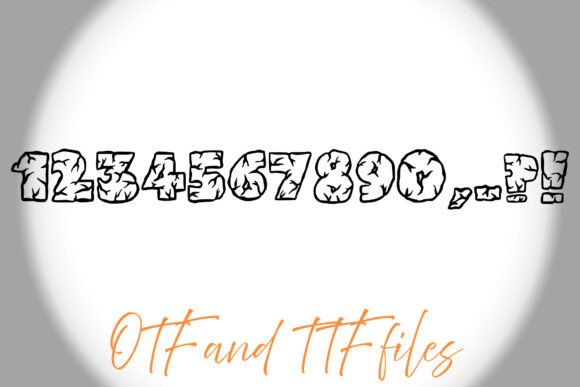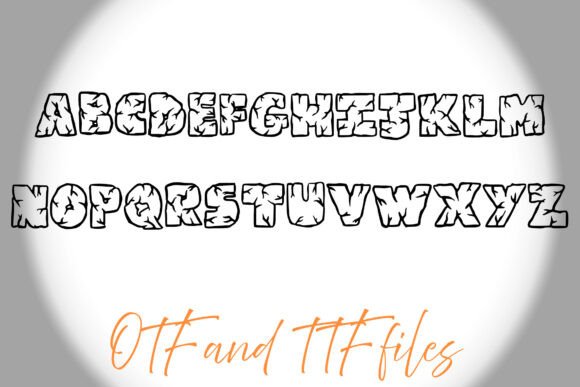
The Perfect Font for the Unbridled Spirit
Have you ever been on a hike and stumbled upon a weathered boulder, its surface etched with the lines of time and the elements? The rugged texture, the worn letters, and the rough edges all combine to evoke a sense of adventure and freedom. It’s a moment that sparks creativity and inspires us to bring that same energy to our work.
Enter the Crumble Rock Font, a display font that captures the essence of that weathered stone in its bold, distressed lettering. Perfect for projects that need a raw, edgy vibe, Crumble Rock Font is a valuable addition to any designer’s toolkit. Whether you’re creating posters, branding with attitude, or simply looking to add some grit to your designs, this font is sure to deliver.
Crumble Rock Font Key Features
- Font Type: Display Font
- Font Size: 1000+ glyphs, including Latin, Cyrillic, and Greek alphabets
- Resolution: Supports high-resolution displays (up to 10,000 dpi)
- Unique Characteristics: Distressed, weathered look with a mix of rough and smooth textures
Crumble Rock Font Review
Crumble Rock Font is an intriguing choice for designers seeking a unique aesthetic. Here’s my honest take on this font.
- Distinctive texture: The font’s distressed, crumbled effect adds a layer of depth and visual interest to any design.
- Expressive character set: Crumble Rock Font comes with a wide range of characters, including international characters, making it suitable for various projects.
- Compact file size: Despite its unique features, the font file is relatively small, making it easy to integrate into your workflow.
- Readability issues: The distressed texture can sometimes make the text difficult to read, especially at smaller font sizes.
- Limited font styles: Crumble Rock Font comes in only one style, which might not be suitable for projects requiring multiple font weights or styles.
- Not ideal for body text: Due to its unique texture and character set, Crumble Rock Font is better suited for headlines, titles, or emphasis, rather than body text.
Crumble Rock Font is a great choice for designers who want to add a touch of grit and personality to their projects. While it has some limitations, its unique texture and expressive character set make it a valuable addition to any font collection. Use it sparingly to create visual interest and emphasis, and you’ll be rewarded with a design that stands out.
Getting the Most Out of Crumble Rock Font
To get the most out of Crumble Rock Font, use it sparingly to add a touch of whimsy and texture to your designs. It’s particularly effective for headings and titles. Experiment with different font sizes and styles to create a unique look.
Crumble Rock Font is perfect for:
- Designing children’s books and educational materials
- Creating a distressed or vintage look
- Adding a touch of whimsy to marketing materials and advertisements
Alternatives to Crumble Rock Font
Rock Salt is a distressed font that resembles a weathered, vintage look. It’s ideal for use in designs that require a nostalgic or retro feel, such as posters, flyers, or websites with a vintage aesthetic.
Compared to Crumble Rock Font, Rock Salt has a more subtle, weathered appearance, with a focus on subtle texture and wear. It’s a good choice for designers who want a more understated, distressed look.
Bloodstone
Bloodstone is a font that features a bold, distressed design with a rough, rock-like texture. It’s perfect for use in designs that require a dramatic, attention-grabbing effect, such as action movie posters or heavy metal album art.
Compared to Crumble Rock Font, Bloodstone is bolder and more dramatic, with a focus on creating a sense of energy and intensity. It’s a good choice for designers who want to make a bold statement with their typography.
Distressed Sans
Distressed Sans is a modern, distressed font that combines a clean, sans-serif design with a rough, weathered texture. It’s ideal for use in designs that require a clean, modern aesthetic with a touch of grit, such as corporate websites or tech product designs.